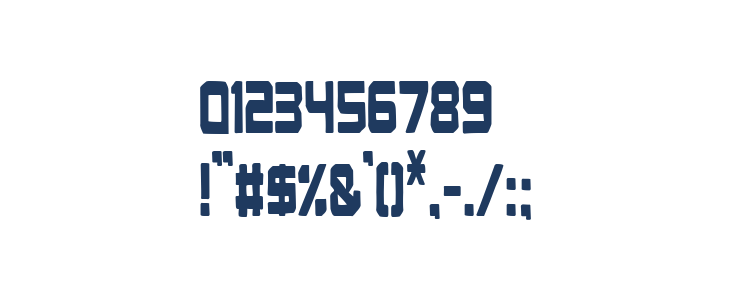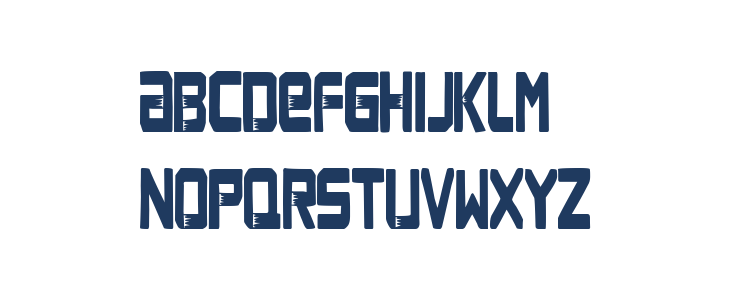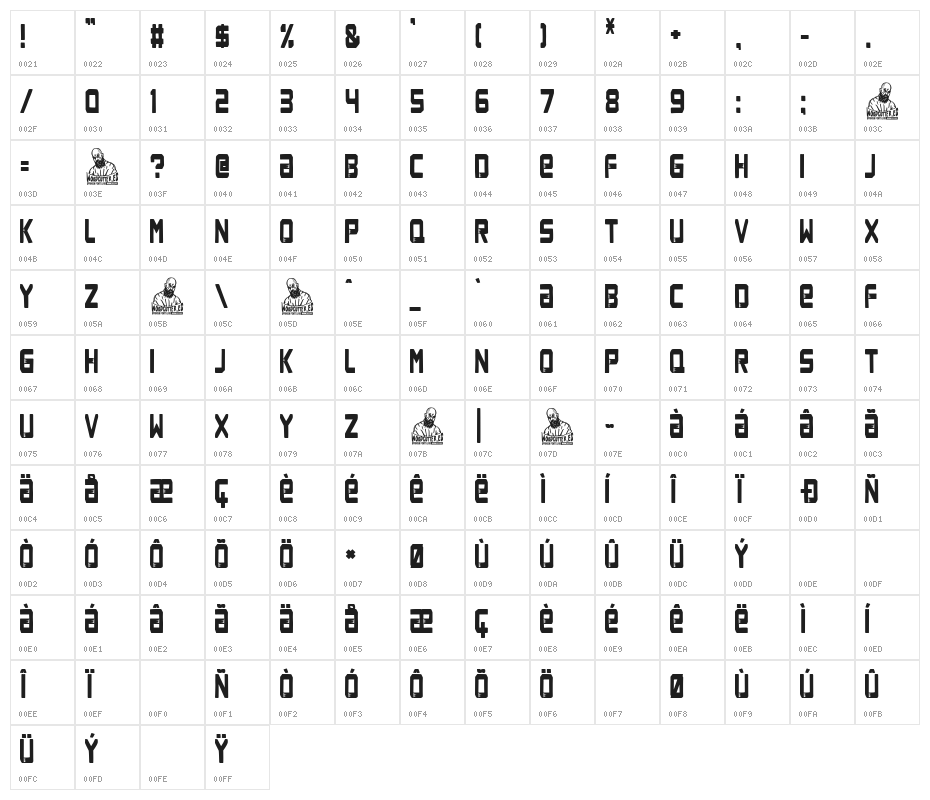
Ultra Force Font
Ultra Force Description
A bold, geometric display typeface with angular letterforms and unique horizontal distress lines cutting through each character, giving it a rugged, industrial, and futuristic appearance.
| Overall Style | Futuristic, Industrial, Decorative |
| Proposed Projects | Posters, video game titles, sci-fi branding, sports logos, action movie graphics, event flyers. |